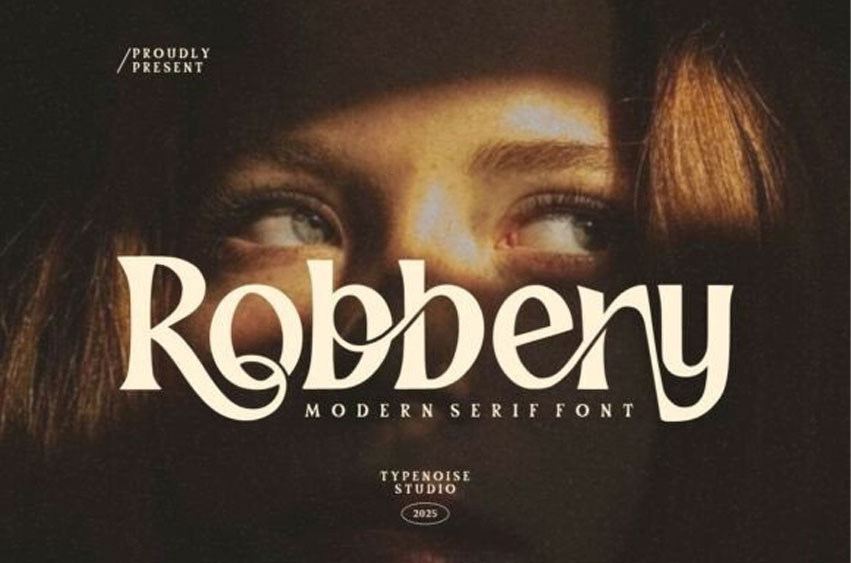
Robbery Font
Robbery Font is a modern serif font that blends classic elegance with artistic flair. Designed with expressive curves, stylish ligatures, and graceful swashes, this typeface brings a distinctive personality to any project. Each letter is crafted to deliver a luxurious, high-end feel, making Robbery the perfect choice for designers who want a look that’s bold, refined, and unforgettable.
With its unique mix of sharp serifs and flowing alternates, Robbery shines in branding, editorial layouts, logo design, packaging, posters, social media visuals, and more. Its thoughtfully designed ligatures allow you to create smooth, professional typography effortlessly—perfect for crafting standout headlines or sophisticated titles.
If you’re looking for a serif font that combines modern aesthetics with artistic charm, Robbery offers the perfect balance of style, character, and versatility.